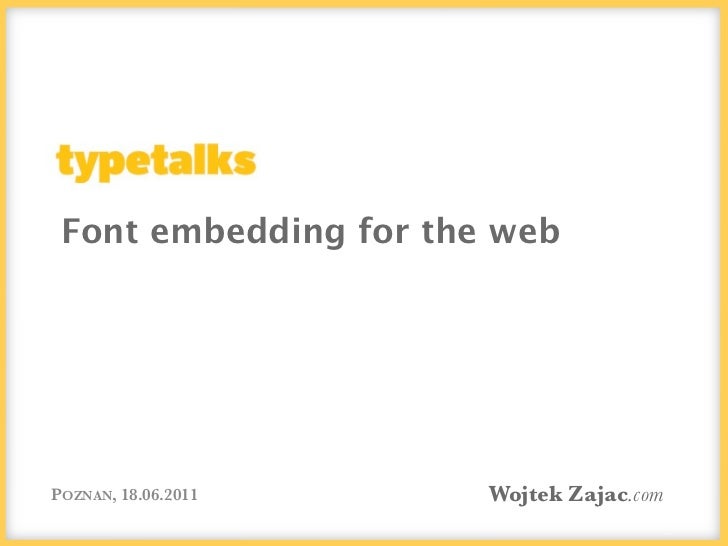
Please raise your hands: how many of you know what is a CSS font stack?\n
CSS Fonts is a way to define fonts that are displayed if our desired font isn’t installed in users’ machine.\nIt defines the preferred order of “back up” fonts to use.\nIt should always end with a generic font-family.\n
Web designers are often constrained by the so called “Web Safe Fonts” when creating web pages and whilst 95% of machines worldwide now have these fonts, they were first packaged with Windows XP back in 2001.\n
These fonts exist on 95% of the machines. Of course it varies basing on the Operating System.\nAlso, devices like iPhone / iPad have much limited font set as well.\nYou will probably agree with me that these fonts are plainly overused.\n
In early 2000s, we used various ways of image replacement. They could be generated dynamically to serve custom text and avoid generating it in advance.\nProblems with: transparency\n
Then, Mike Davidson basing on the work of Shaun Inman published sIFR, a way to embed custom fonts to sites using Flash.\nThis solved a problem for some time, but the fonts couldn’t be used for body text. \nAlso, the flash text isn’t working for mobile devices.\n
In 2008, Cufon came out and designers were very excited about it again.\nUnfortunately, this solution based on HTML Canvas, which is just a hack.\n
Here is the new CSS3 syntax for embedding the fonts.\n
Font embedding for the webPOZNAN, 18.06.2011 Wojtek Zajac.com
What is a CSS font stack?
A way to define fallback fonts I am in “love” with people abusing quotation marks. ideal common font‐family: Didot, Garamond, "Times New Roman", serif; alternative generic
For years,we’ve been limited to a small set of “web safe” fonts.
Fonts existing on 95% of PCs Arial Arial Comic Sans Black Courier New Georgia Impact Palatino Lucida Sans Tahoma Linotype Times New Trebuchet MS Roman Verdana
So, we’ve had to come upwith some workarounds. (old-school methods)
2003: CSS Image Replacement Credits: Dave Shea
2005: sIFR (Scalable Inman Flash Replacement)
2008: Cufón
None of them was perfect✦ poor accessibility✦ broken built-in browser search✦ inability to use live translating tools (Google Translate)✦ much decreased styling abilities
Make it bulletproof(yes, you can use it today) @font‐face { font‐family: Tagesschrift; src: url(tagesschrift.eot); /* IE 5‐8 */ src: local(☺), /* sneakily trick IE */ url(tagesschrift.woff) format(woff), /* FF 3.6, Chrome 5, IE9 */ url(tagesschrift.ttf) format(truetype), /* Opera, Safari */ url(tagesschrift.svg#font) format(svg); /* iOS */ }
Or just use the Font Squirrel generator Font Squirrel generator
Problem?Licenses
Use web font hosting services popular, the simplest to use personal (free) and paid accounts small, curated set of freely licensed fonts wide range of fonts, mobile support over 10000 fonts to choose from annual fee extensive localization support doesn’t support desktop useMore: http://sprungmarker.de/wp-content/uploads/webfont-services/